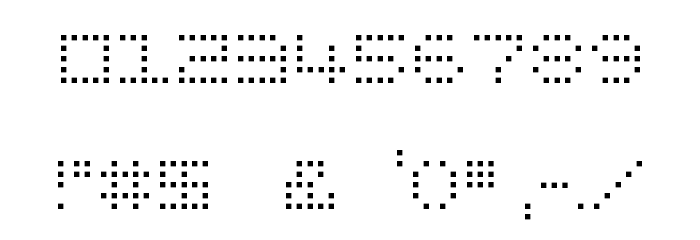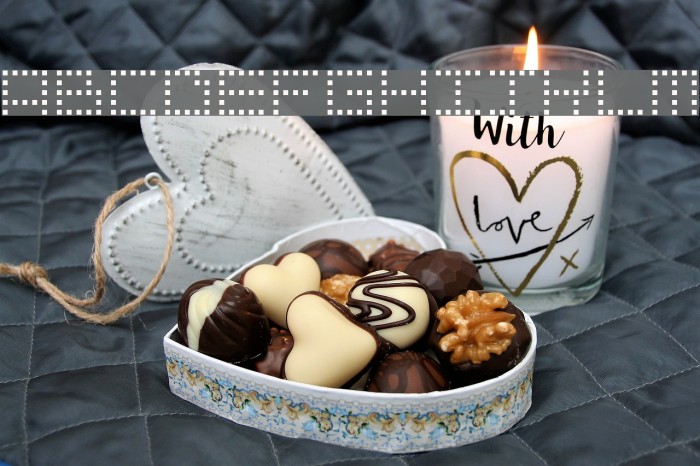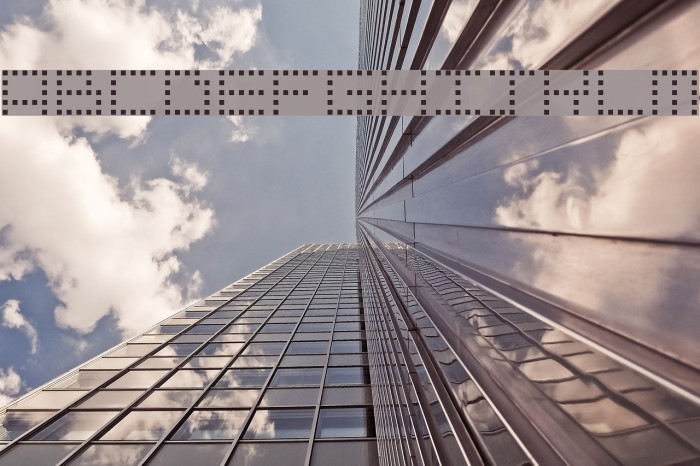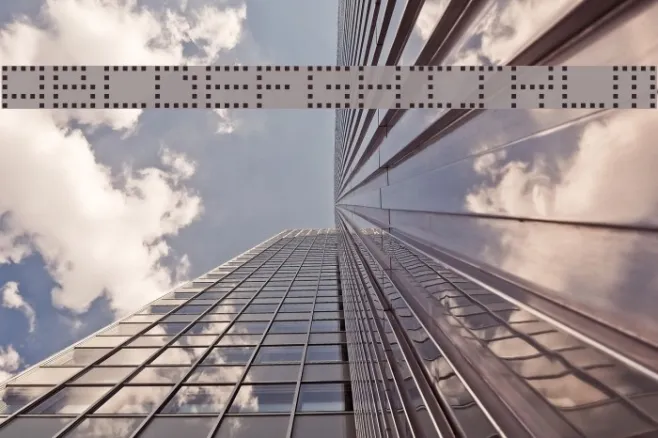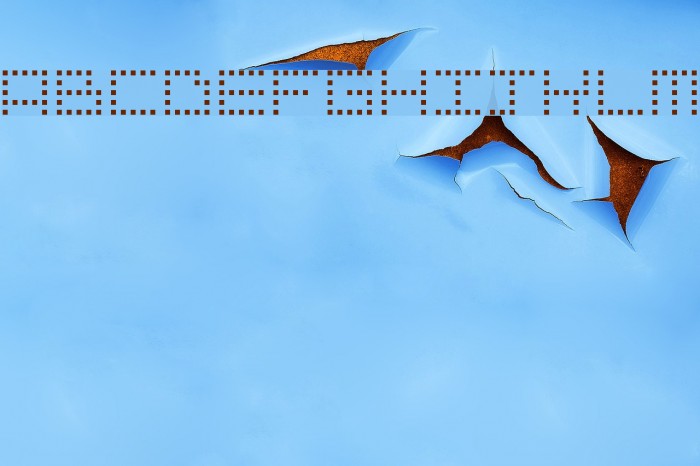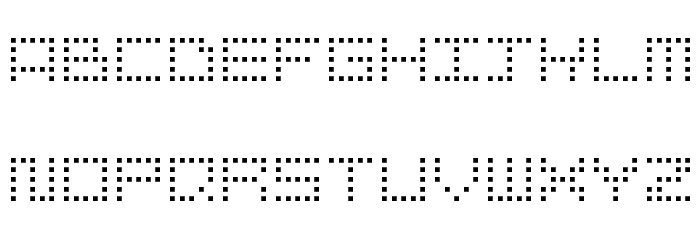
snapix Font
This font features a unique dotted design, where each character is composed of small, evenly spaced dots forming the shape of letters and numbers. The style is reminiscent of digital displays or LED screens, giving it a modern and technological feel. The uppercase and lowercase letters maintain a consistent height and width, ensuring uniformity across the text. The numbers and special characters follow the same dotted pattern, creating a cohesive look. This font is particularly eye-catching due to its unconventional structure, making it suitable for creative and tech-oriented projects.
| Use Case | Logos, Headlines, Digital displays |
| Proposed Projects | Ideal for digital art, tech-themed posters, futuristic branding, and electronic displays. |